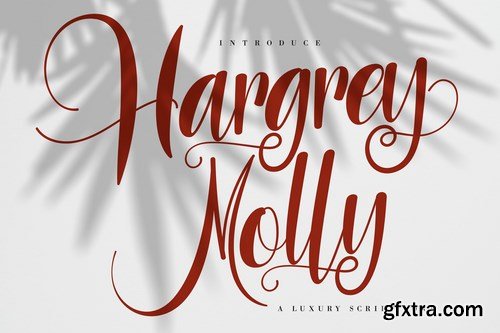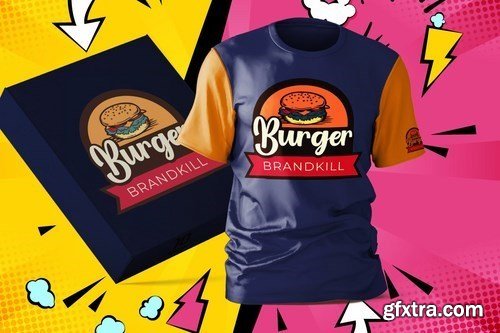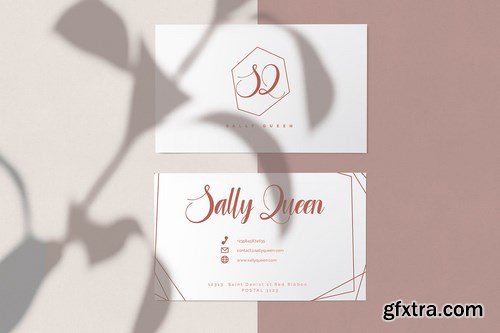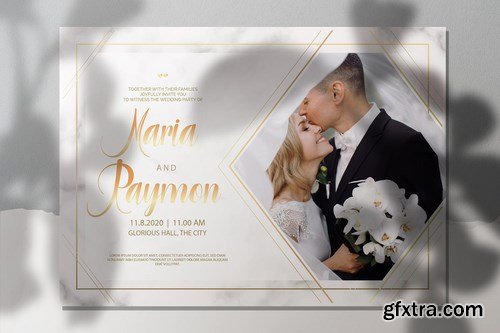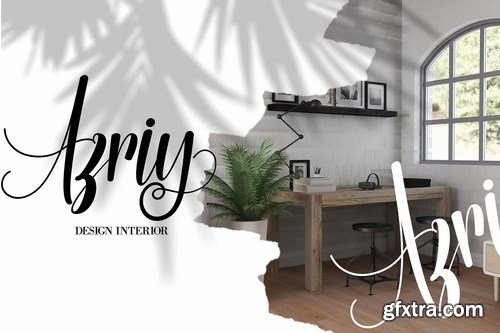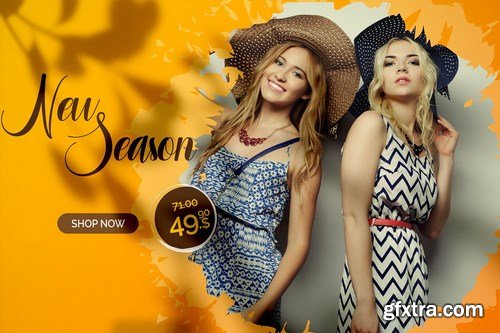
Hargery Molly | Luxury Script Font with a calligraphy style, So beautiful on invitation like greeting cards, branding materials, business cards, quotes, posters, and more!